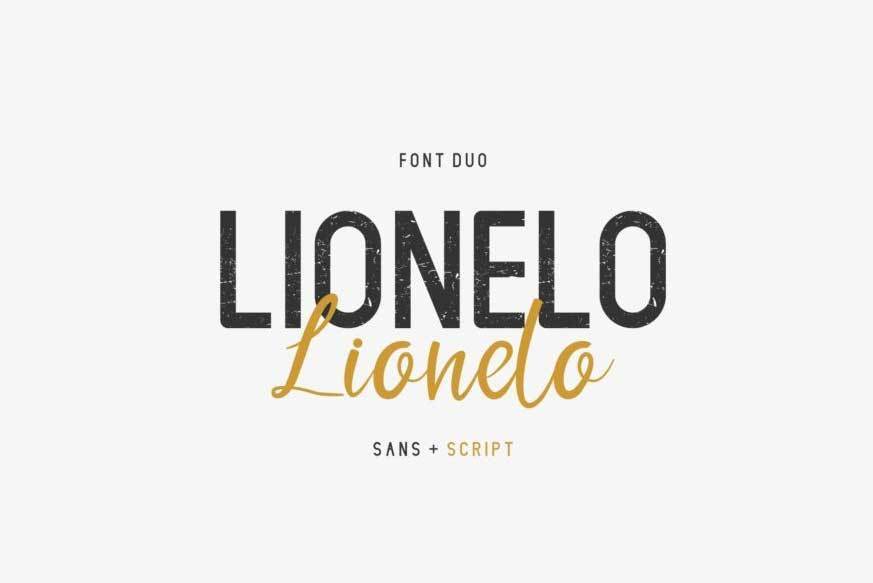
Lionelo Font Duo
Hello Everyone! Introducing our newest font : LIONELLOFOUR FONTS INCLUDEDThis is a vintage sans serif and stylish script handwriting font. It has a unique, elegant, classic and stylish glyph.
Will be awesome for almost any project. Great for branding, logo, stationery, business card, signage, flyer, brochure, invitation, wedding, promo, ads etc.